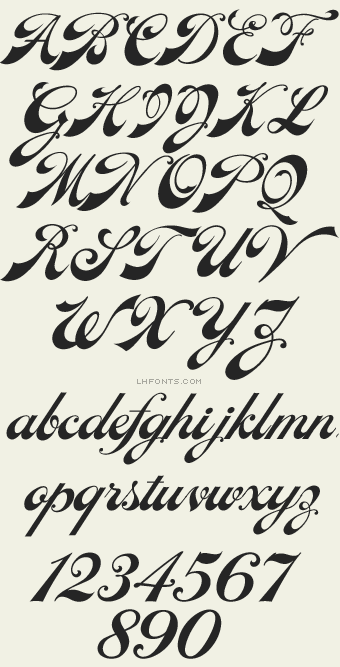
Old fashioned script inspired by letterheads from the late 1800's and early 1900's. Set includes three fonts LHF Ephemera Regular, LHF Ephemera Alternates and LHF Ephemera Swashes. You might also like: Chicago Script & Marie Script